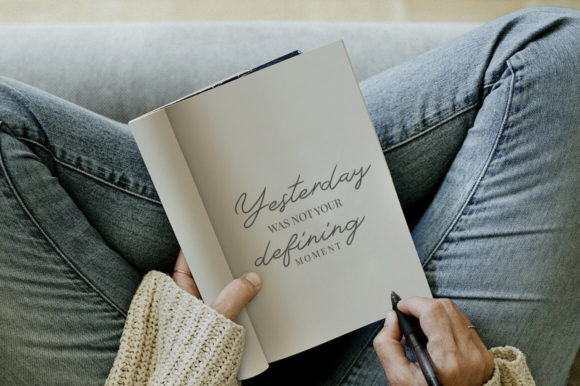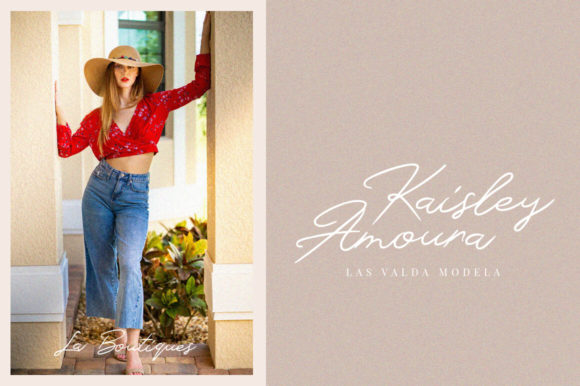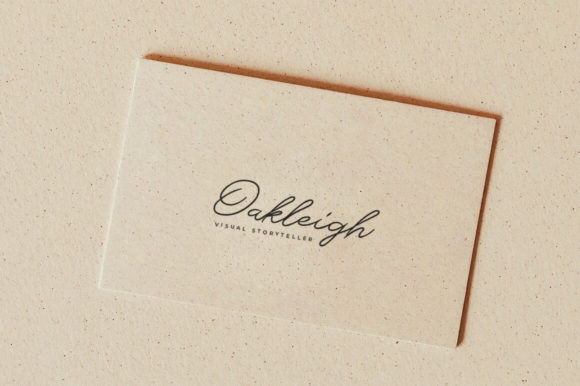
Introduction to Monsttera Font
Have you ever stared at a blank page, feeling like your creative well has run dry? For designers, this can be a frustrating experience, especially when working on a project that requires a unique touch. But what if you could add a dash of classic charm to your design, making it stand out from the crowd?
This is where the Monsttera Font comes in – a beautiful, handwritten font that exudes a timeless appeal. With its elegant curves and subtle nuances, it’s the perfect addition to any creative project. Whether you’re working on a logo, brochure, or social media graphics, Monsttera Font is a valuable resource that can elevate your design to the next level.
Key Features of Monsttera Font
- High-quality design resource ideal for creative projects, including graphic design, digital art, and typography.
- Features a unique, bold, and playful style with a transparent background, making it perfect for overlaying on images or videos.
- Includes a wide range of glyphs and characters, including Latin, Cyrillic, and Greek alphabets.
- Designed with a high resolution of 300 DPI, ensuring crisp and clear display on various devices and screens.
- Perfect for use in various design projects, such as logos, posters, social media graphics, and more.
- Comes in a range of font sizes, from 12pt to 72pt, allowing for flexibility and customization in design projects.
Honest Review: Monsttera Font
As a designer, I’ve had the chance to experiment with various fonts for my creative projects. Recently, I stumbled upon the Monsttera Font, and I must say it’s been a game-changer.
- High-quality design that’s perfect for adding a touch of sophistication to your projects
- Transparent background allows for seamless integration into your design
- Unique style that’s sure to grab attention in your creative project
- ⚠️ Limited character set, which may be a concern for designers who need a wide range of characters
- ⚠️ Not ideal for body text, as it may be too bold and attention-seeking
Overall, I’m impressed with the Monsttera Font. Its unique style and high-quality design make it a valuable resource for designers. While it may have some limitations, it’s definitely worth considering for your next creative project.
Getting the Most Out of Monsttera Font
To get the most out of Monsttera Font, experiment with different font sizes, colors, and combinations to achieve the desired look. This font is particularly useful for creating bold and eye-catching designs.
Monsttera Font is commonly used in various design projects, including graphic design, branding, and digital art. Its high-quality design and transparent background make it an ideal choice for creative professionals and hobbyists alike.